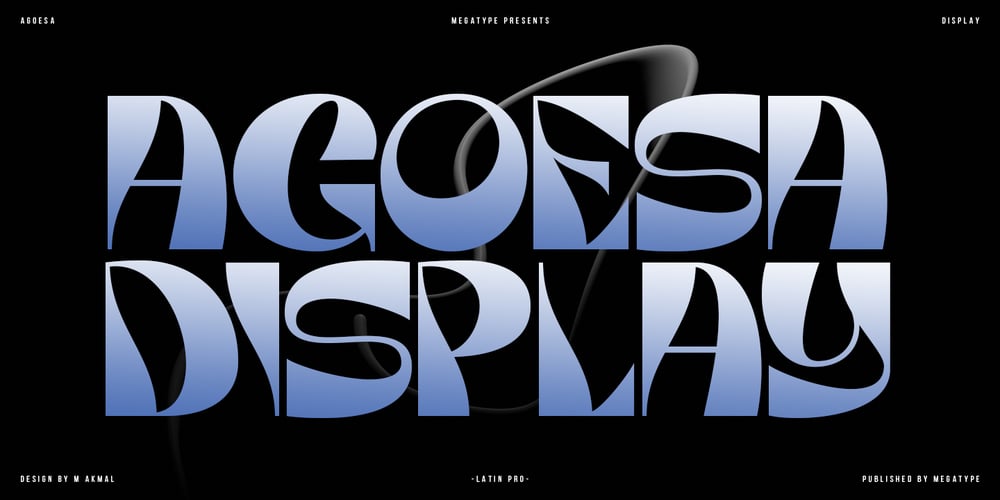
Agoesa Display Font Family was designed by M Akmal and published by Mega Type. Agoesa Display contains 1 styles and family package options. Agoesa is a modern display font with a positive character that is bright, unique and elegant. Its curves give off a friendly and fun personality. Perfect for creating a welcoming atmosphere in any design.-Multilingual Support-Free future updatesHave fun using Agoesa Display!!!I really hope you enjoy it!Feel free to follow, like and share.Thank you so much for checking out my shop!